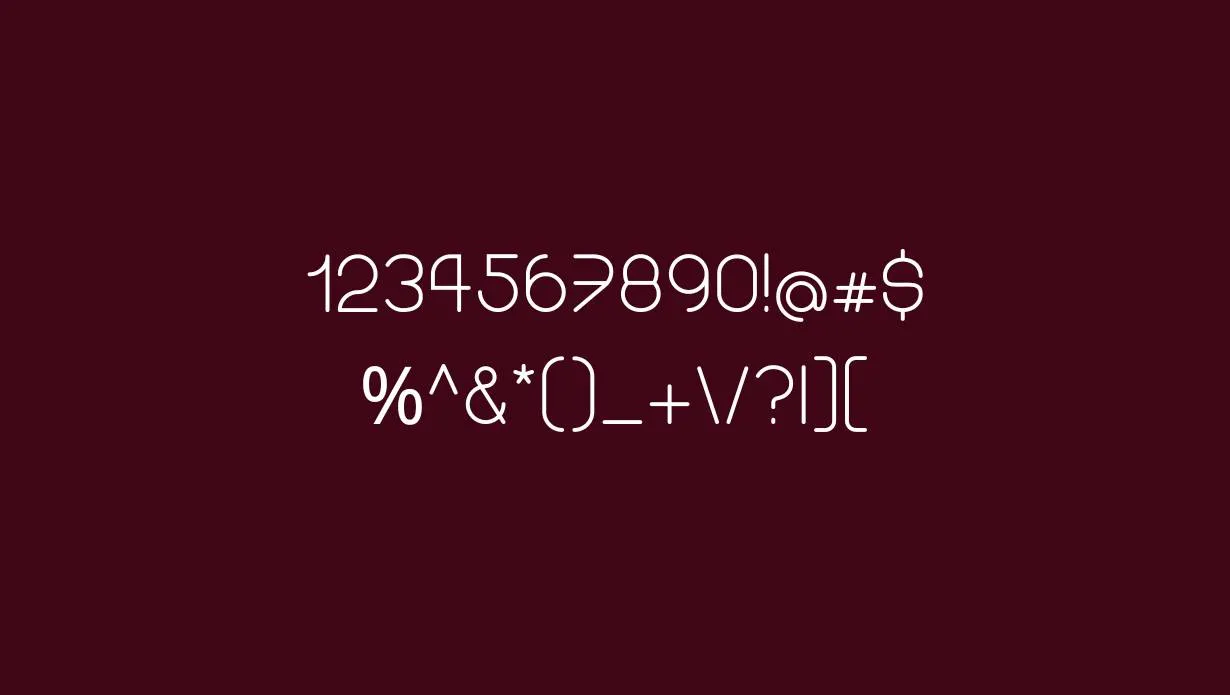
We’re introducing Whola Font, a Sans-Serif font that was created by an unknown designer along with TTF and OTF formats. It has a thin, clean, and unique presence that looks perfect in logos, branding, marketing, watermarks, etc.
This font style is motivated by modern, clean, and pure geometric shapes that have rounded thin letterforms. It can give a smooth, refreshing, elegant, and superior touch to anything.